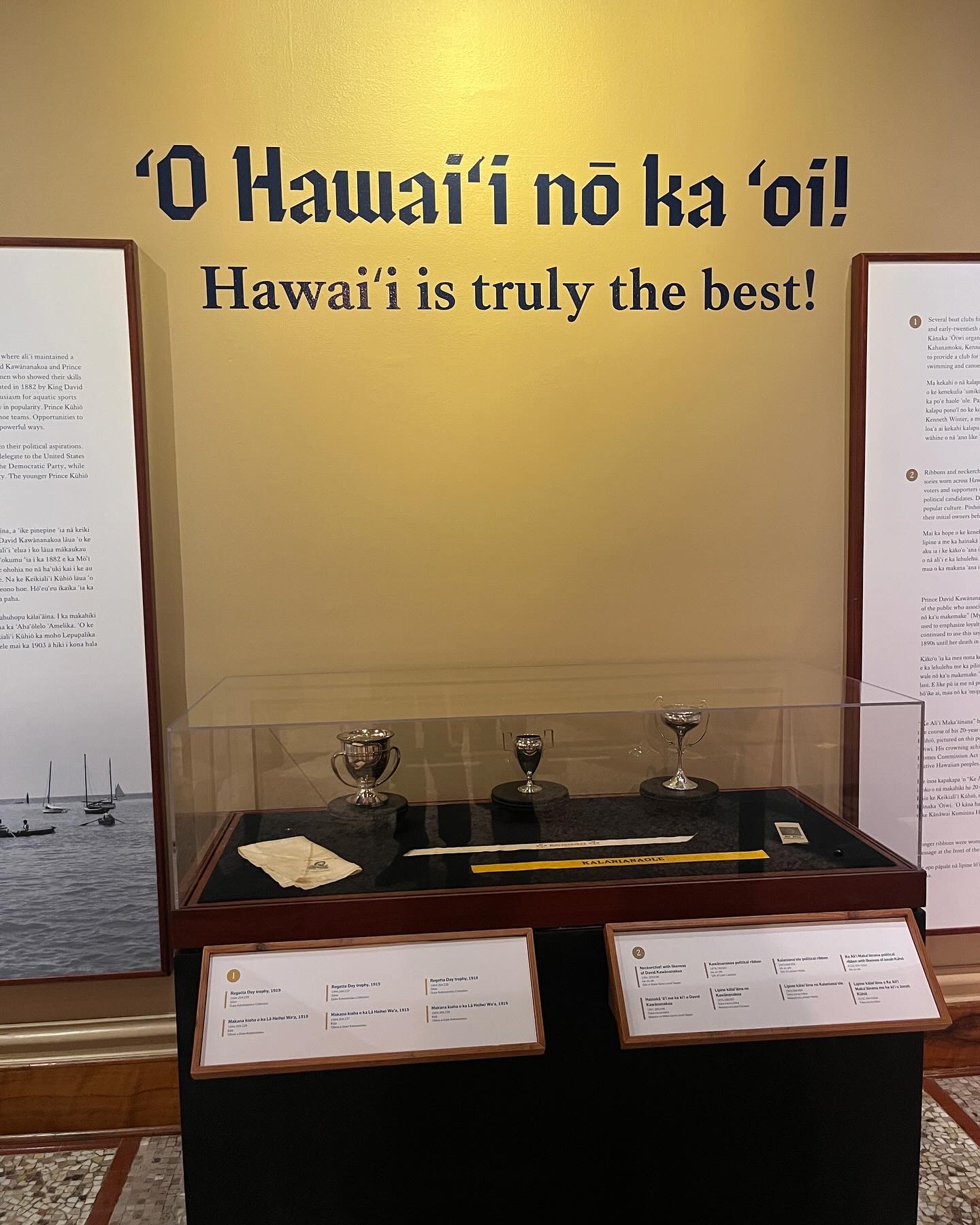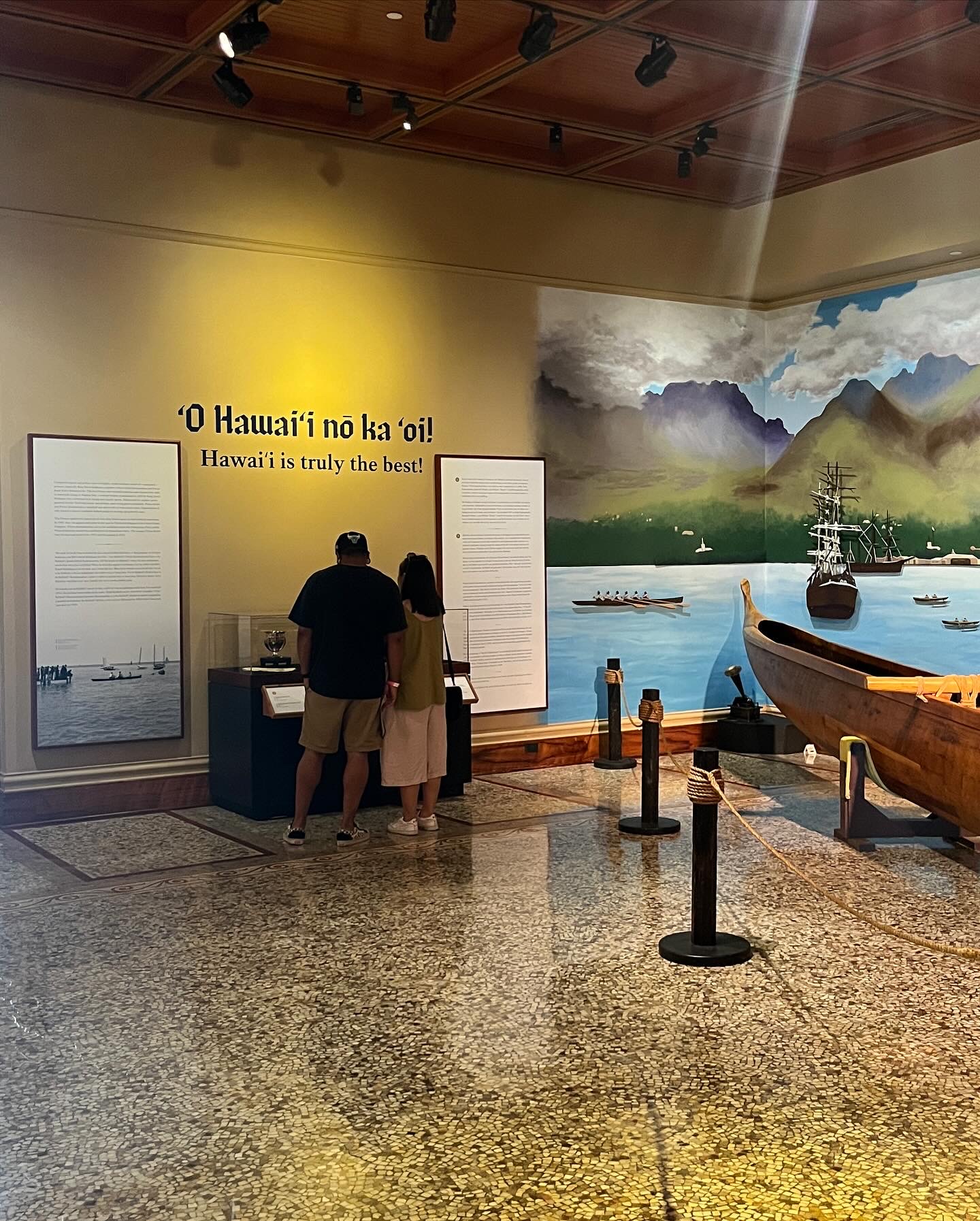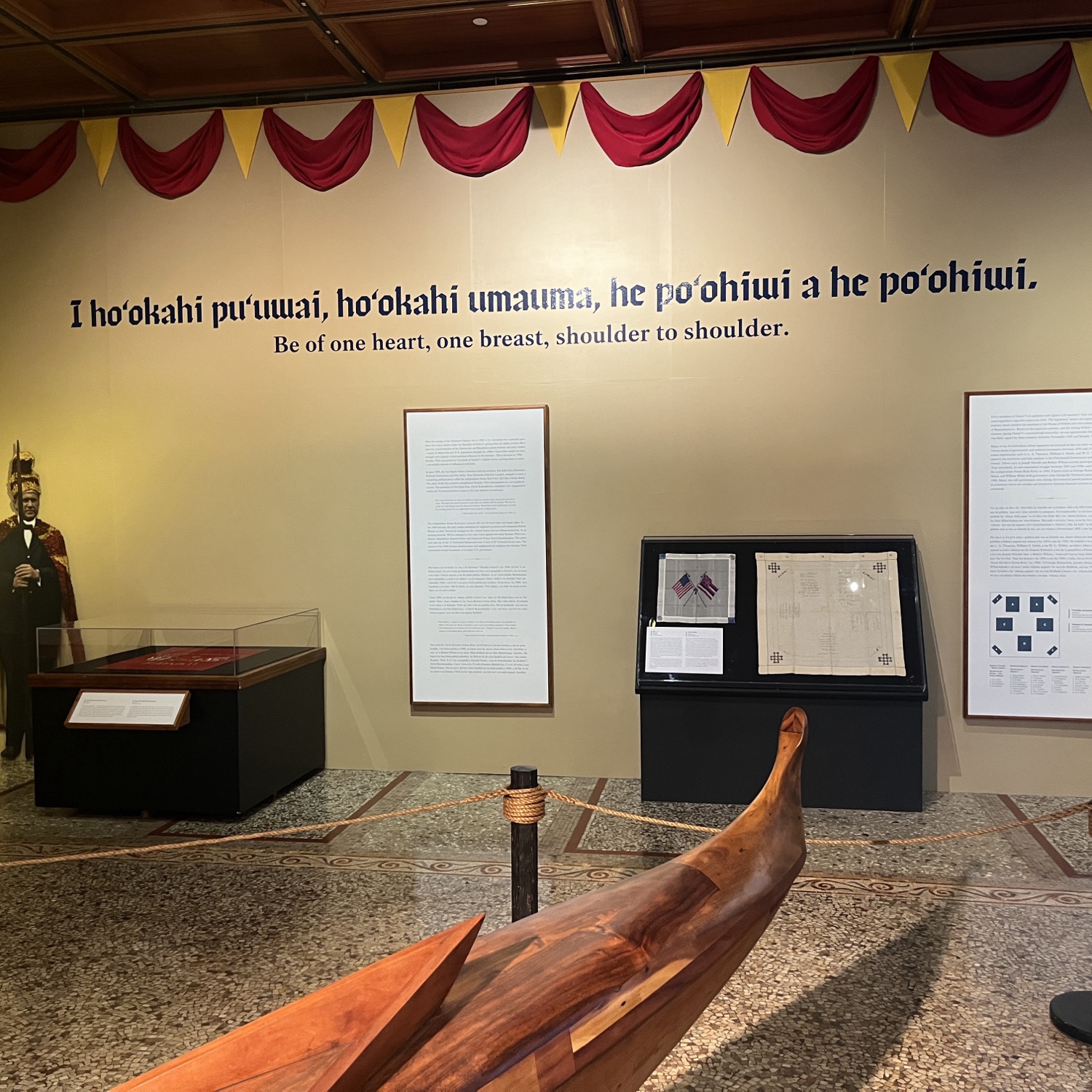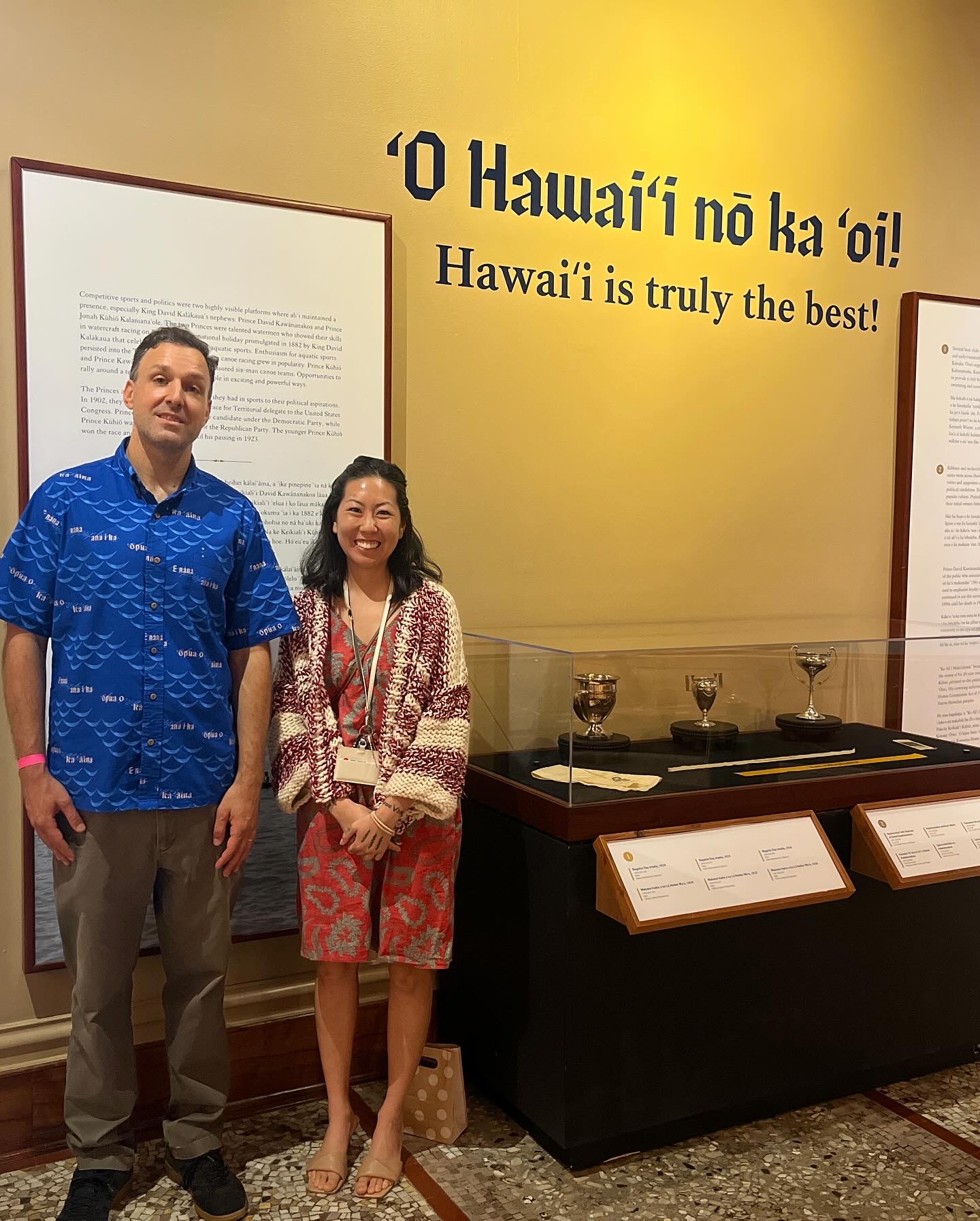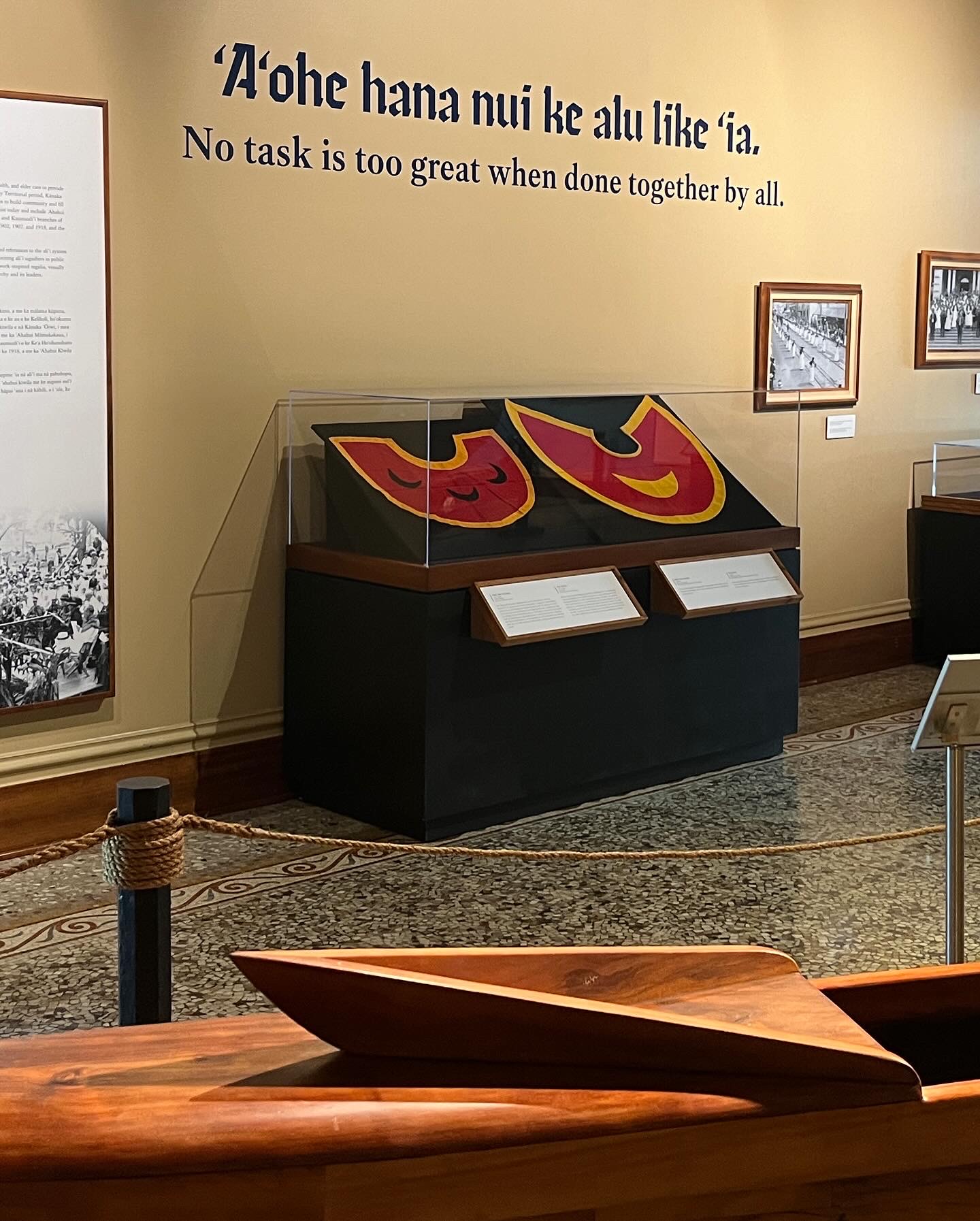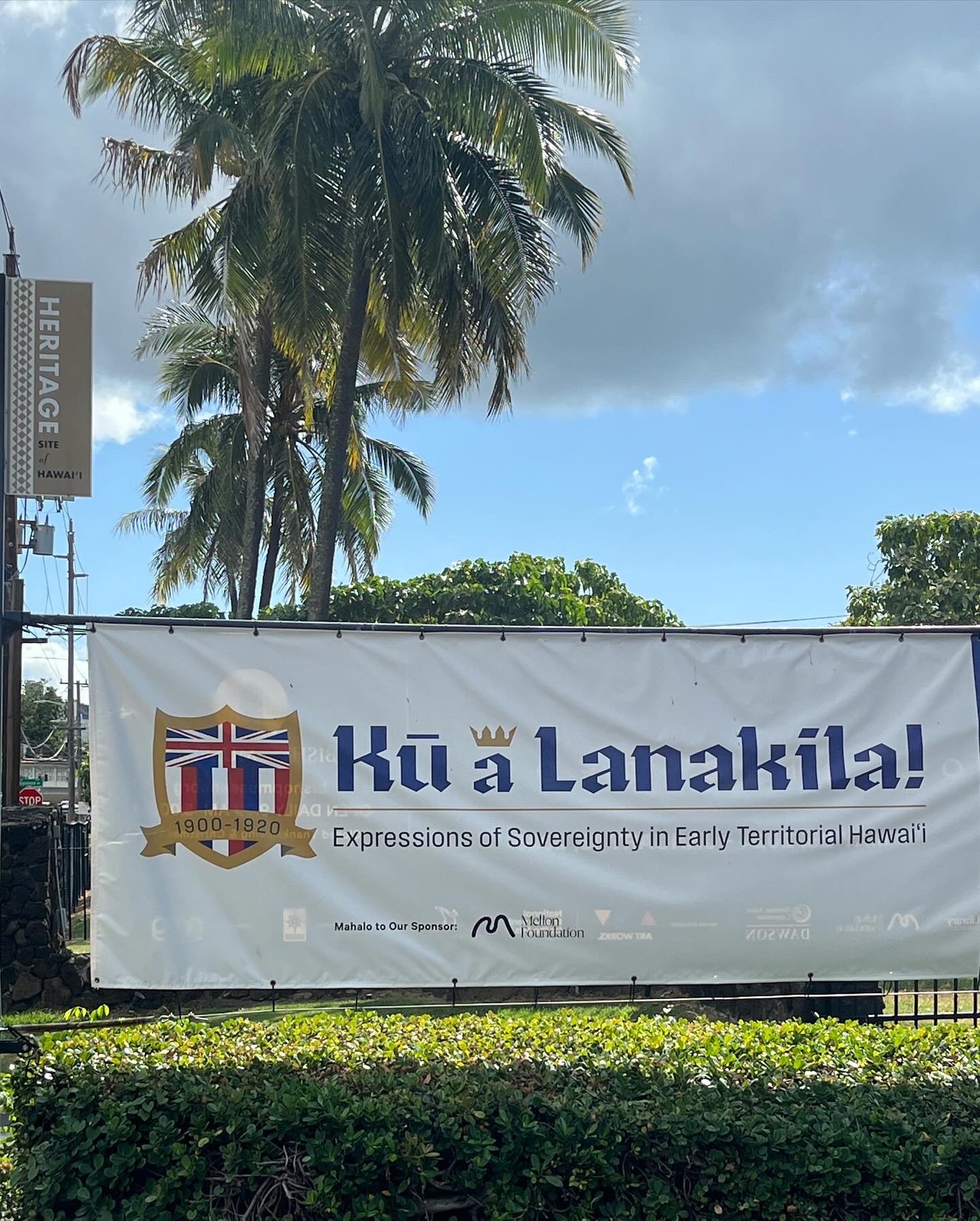
Bishop Museum - Kū a Lanakila!
Kū a Lanakila! Expressions of Sovereignty in Early Territorial Hawaiʻi, 1900-1920
This exhibition delves into the ways Kānaka ʻŌiwi (Native Hawaiian people) asserted their presence and sovereignty during Hawaiʻi’s early territorial period through cultural and political expressions. ʻŌpua Mauka Bold is used for the exhibition wall text as well as digital and outdoor advertisement. Since the design process for the ʻŌpua typeface collection looked words in ʻŌlelo Hawaiʻi (Hawaiian language) first and foremost, the typeface works especially well in this exhibition which includes many long Hawaiian words with ʻokina and kahakō diacritics. The use of the bold weight of ʻŌpua Mauka pairs nicely with the exhibition’s theme of loudly and boldly expressing soveriegnty and pride.